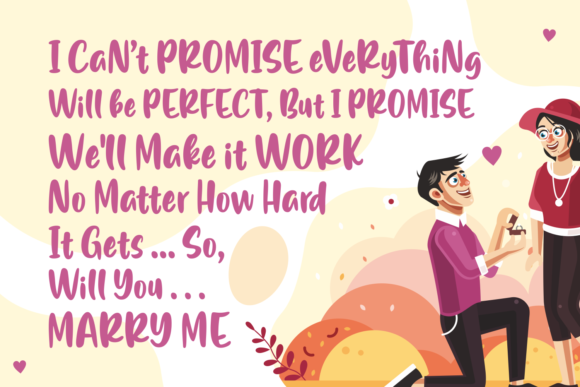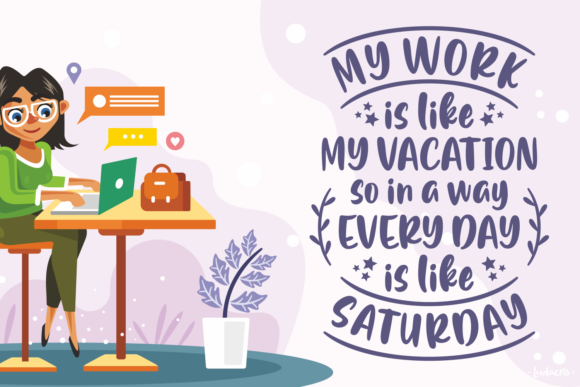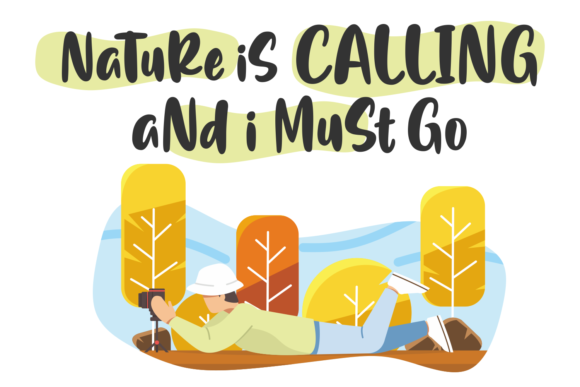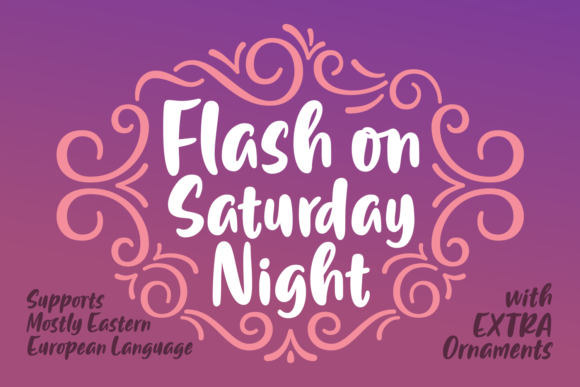
Discover the Magic of Flash on Saturday Night Font
Get inspired by the beautiful Flash on Saturday Night font! It will add a personal and unique touch to any design project. As a designer or crafter, you’re constantly on the lookout for innovative and eye-catching typography to elevate your work. That’s where the Flash on Saturday Night font comes in – a stunning typeface that’s sure to captivate your audience.
What is Flash on Saturday Night Font?
Flash on Saturday Night is a distinctive font designed to bring a touch of glamour and sophistication to your designs. Its elegant and refined aesthetic makes it perfect for a wide range of projects, from branding and advertising to packaging and digital media. This beautiful font is sure to make your work stand out from the crowd.
Key Features of Flash on Saturday Night Font
- Unique and Personalized Touch: The Flash on Saturday Night font boasts a one-of-a-kind design that will add a personal touch to your projects. Its distinctive style ensures that your work will be instantly recognizable.
- Elegant and Refined Aesthetic: This font exudes sophistication and glamour, making it perfect for high-end designs and luxury brands.
- Versatile and Adaptable: Flash on Saturday Night font can be used across various platforms and mediums, from print to digital.
- Easy to Read and Understand: Despite its unique design, this font remains highly legible, ensuring that your message is conveyed clearly and effectively.
How to Use Flash on Saturday Night Font in Your Designs
Integrating the Flash on Saturday Night font into your projects is easy. Here are some ideas to get you started:
- Branding and Logo Design: Use Flash on Saturday Night font to create a memorable and luxurious brand identity.
- Advertising and Marketing Materials: Add a touch of elegance to your ad campaigns, brochures, and flyers.
- Packaging Design: Elevate your product packaging with this sophisticated font.
- Digital Media: Use Flash on Saturday Night font in your website designs, social media graphics, and email marketing campaigns.
Tips and Tricks for Working with Flash on Saturday Night Font
To get the most out of this beautiful font, keep the following tips in mind:
- Experiment with Font Sizes and Colors: Play around with different font sizes and colors to create visual interest and hierarchy.
- Pair with Complementary Fonts: Combine Flash on Saturday Night font with other fonts to create a unique and harmonious typography system.
- Use in Combination with Images and Graphics: Balance text and visuals by incorporating images and graphics alongside the font.
The Flash on Saturday Night font is a game-changer for designers and crafters looking to add a personal and unique touch to their work. Its elegant design, versatility, and legibility make it an excellent choice for a wide range of projects. Get inspired by this beautiful font and take your designs to the next level!